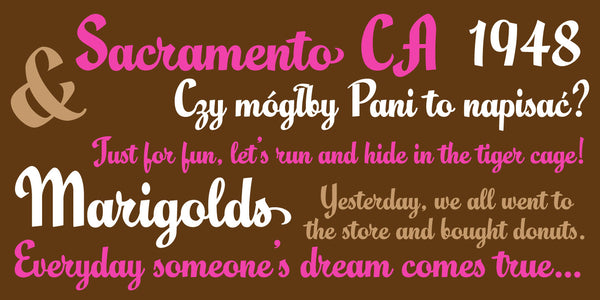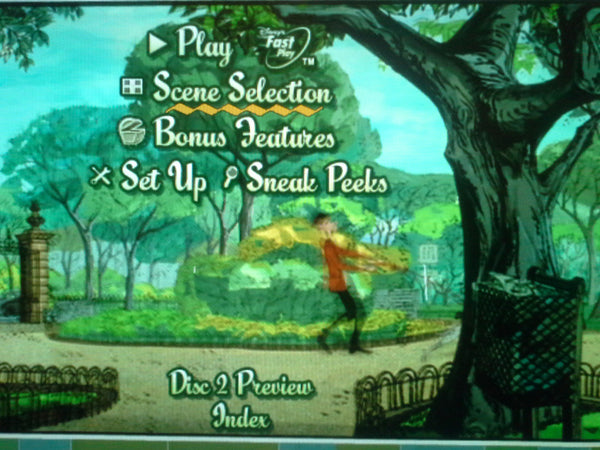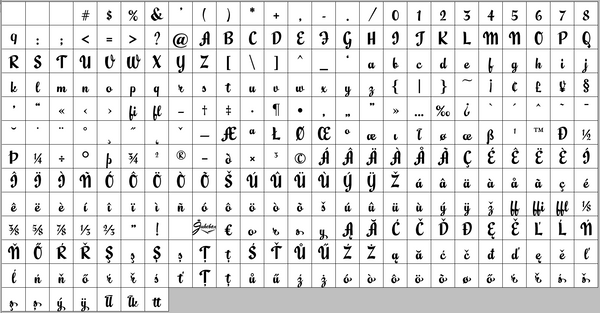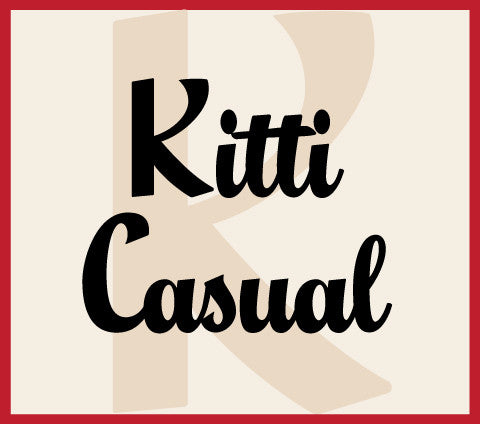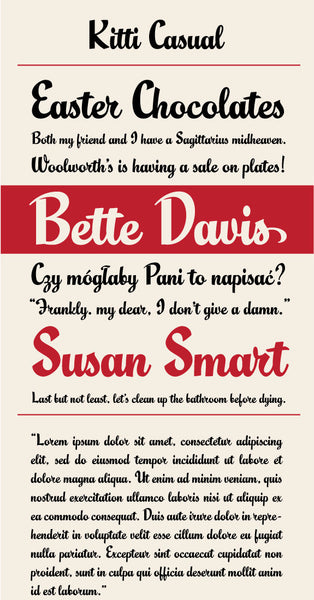
Kitti Casual
Kitti Casual is a heavy upright script face inspired by a 1950s handlettered advertisement. Named after my aunt, the font evokes feelings of warmth, friendship and is approachable and casual. Perfect for a variety of designs andn layouts, ad Kitti Casual to your font library today!
Notable Use: Kitti Casual was used on the all the DVD menus for the 2008 release of Walt Disney's "101 Dalmatians".